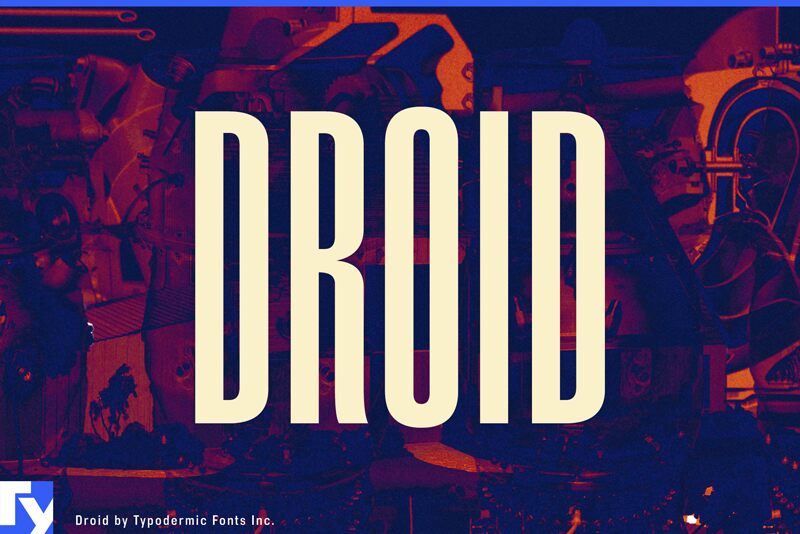
Droid 1997 Regular
Droid, a captivating display typeface crafted by Typodermic Fonts, exudes a futuristic charm with its compact, condensed letterforms. This mixed-case font, introduced in 1996, effortlessly evokes the aesthetic sensibilities of the 1990s, inviting a sense of nostalgia and modernity.
Droid's striking visual identity makes it a versatile choice for a variety of design projects, from eye-catching headlines and bold branding to impactful digital interfaces. Its ultra-narrow design lends itself seamlessly to projects requiring a compact, space-efficient typographic solution, while its distinct personality adds a touch of captivating flair.
Ray Larabie
Cyrillic by Sergiy S. Tkachenko, 2010